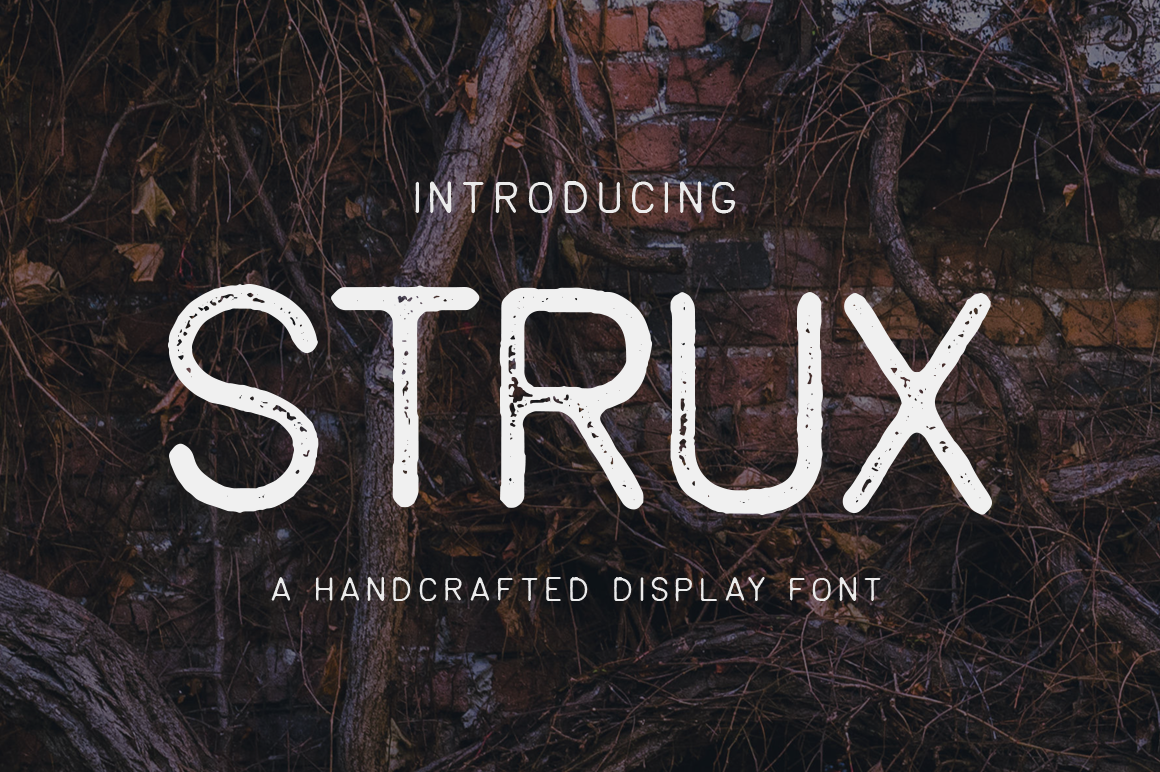
STRUX - Hand-crafted font
Introducing STRUX; my latest sans serif display font.
STRUX includes two versions: both regularly and a textured, stamped version which was creating using real ink textures. Be sure to check out the enlarged preview images to see the textures up close!